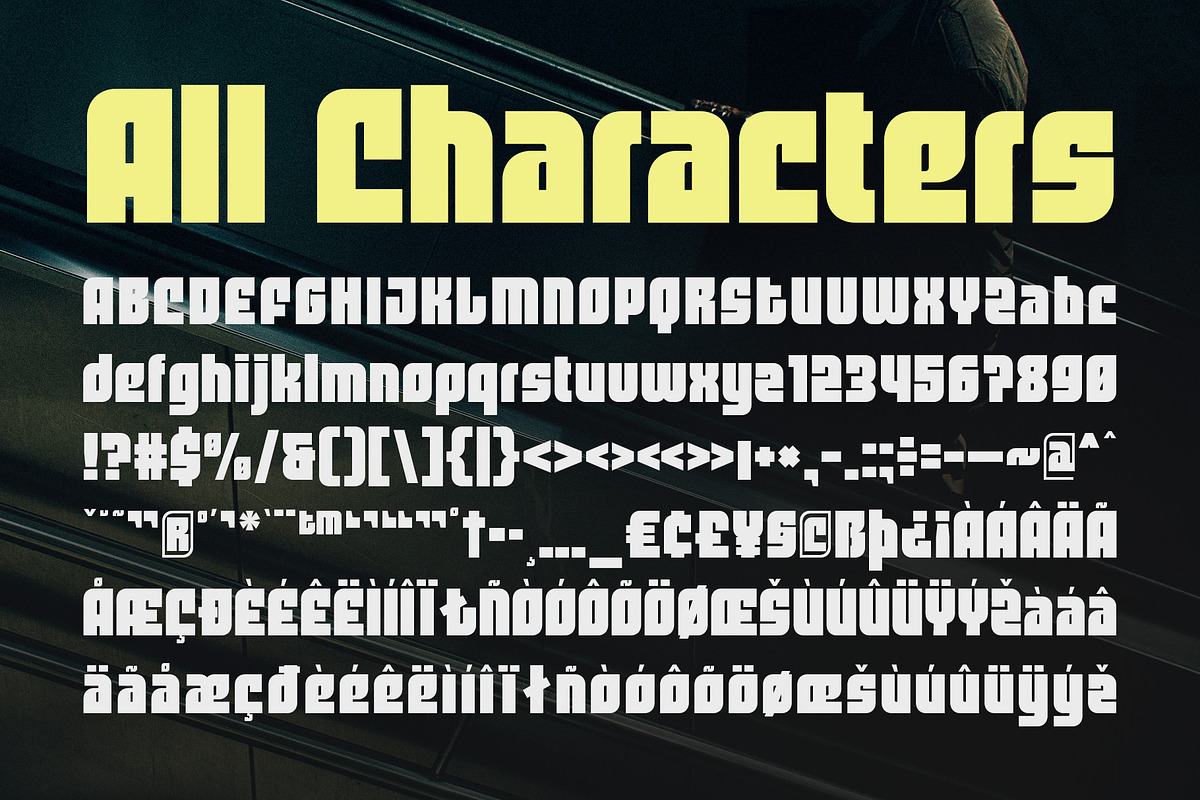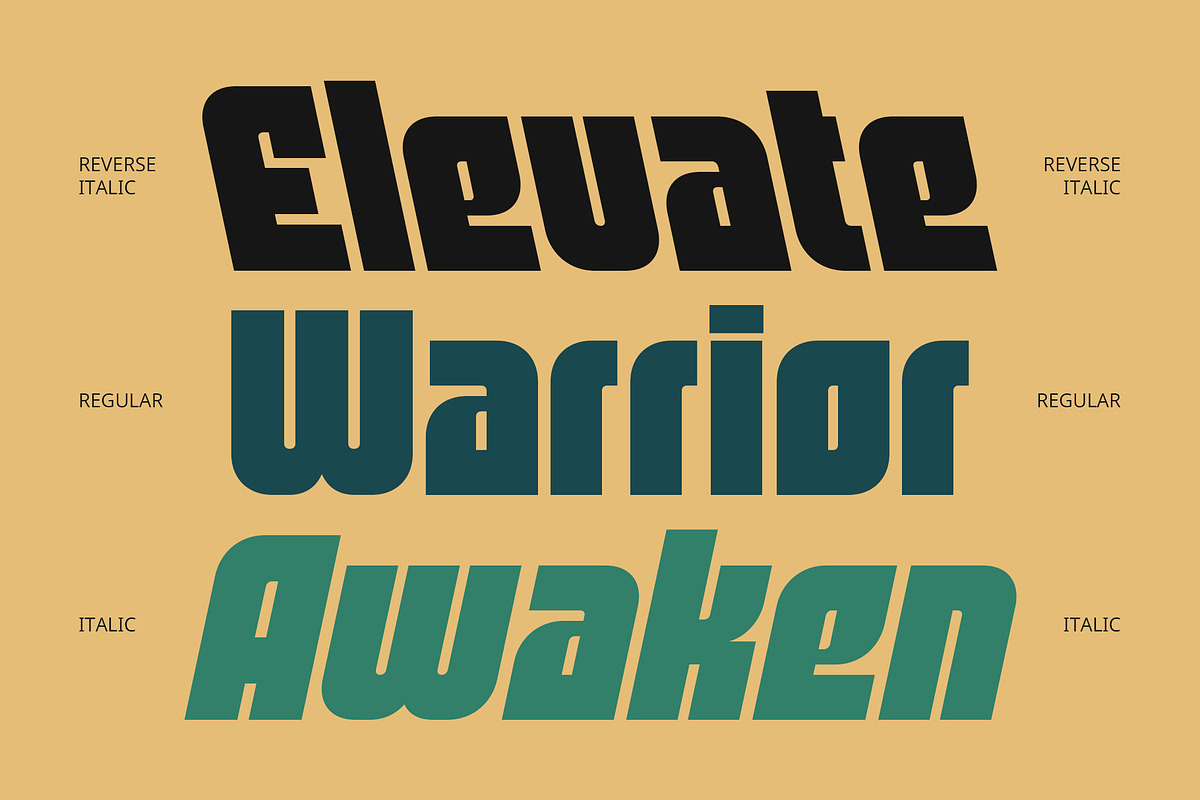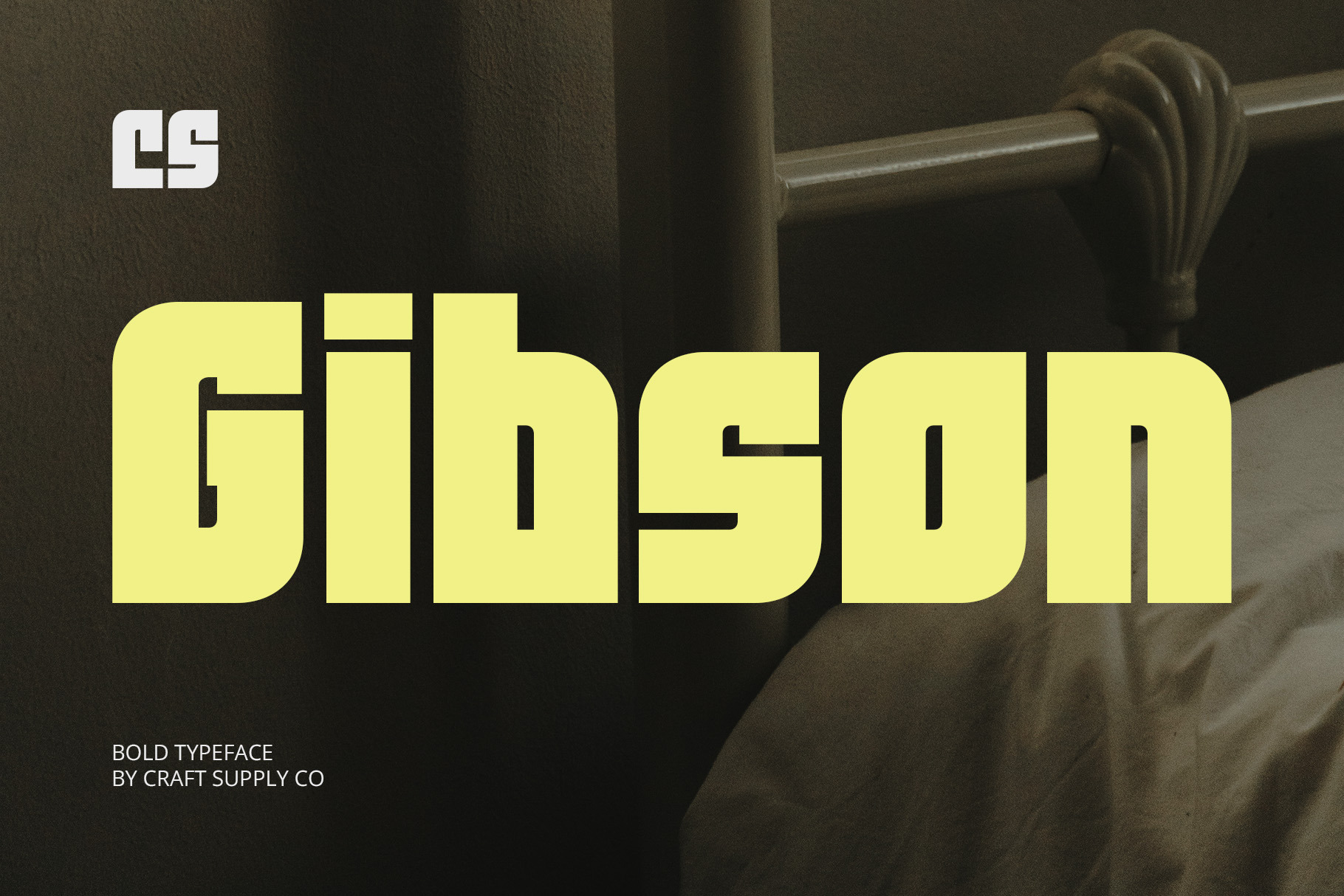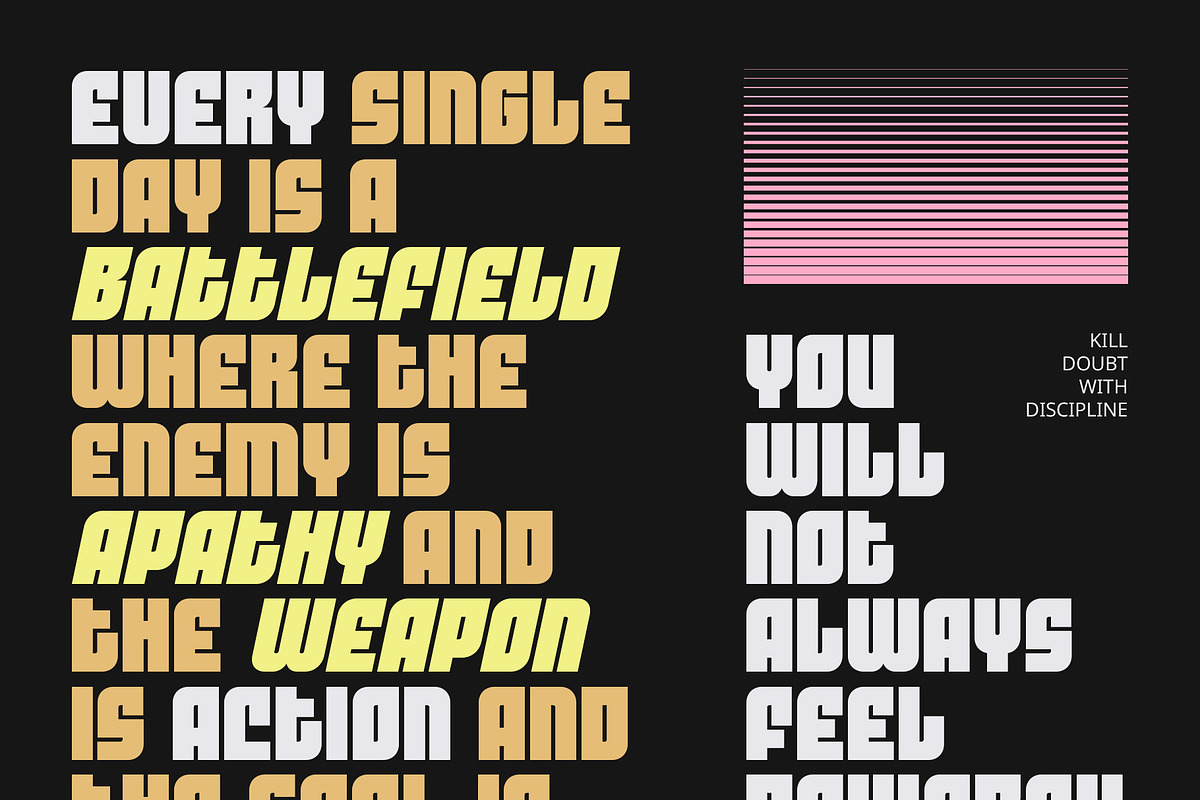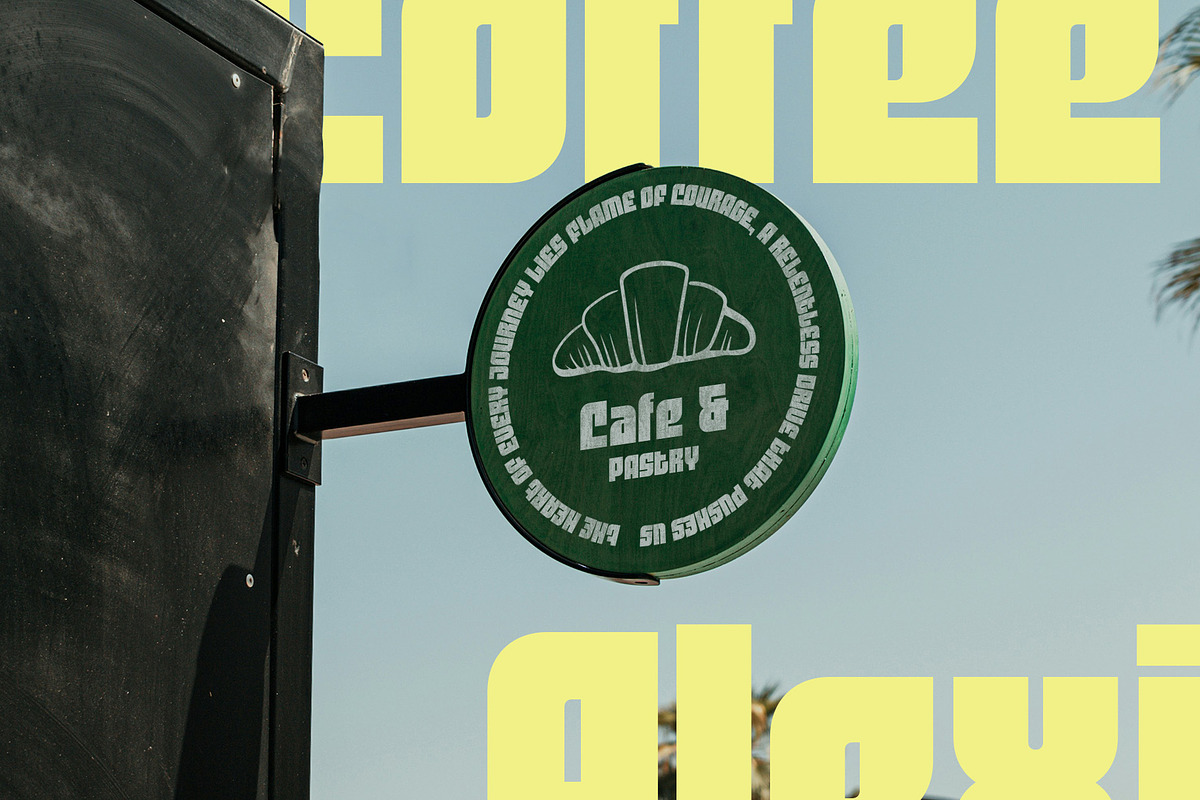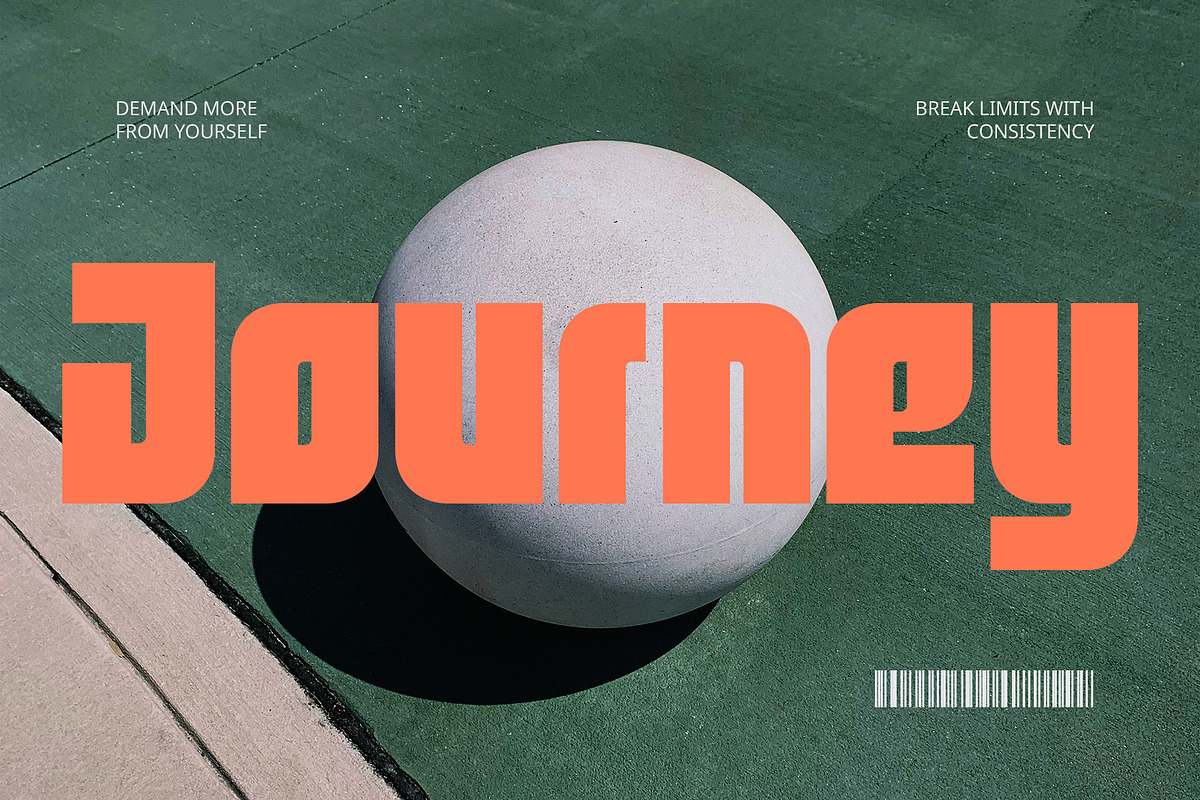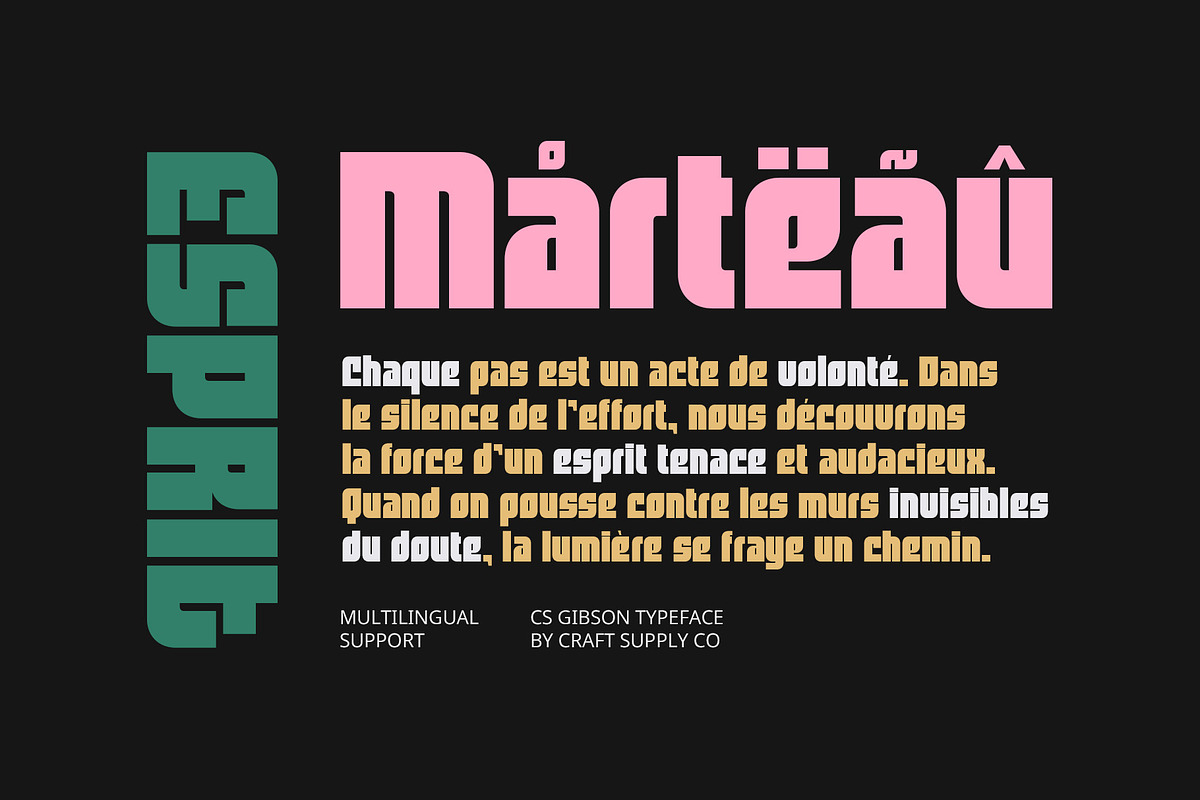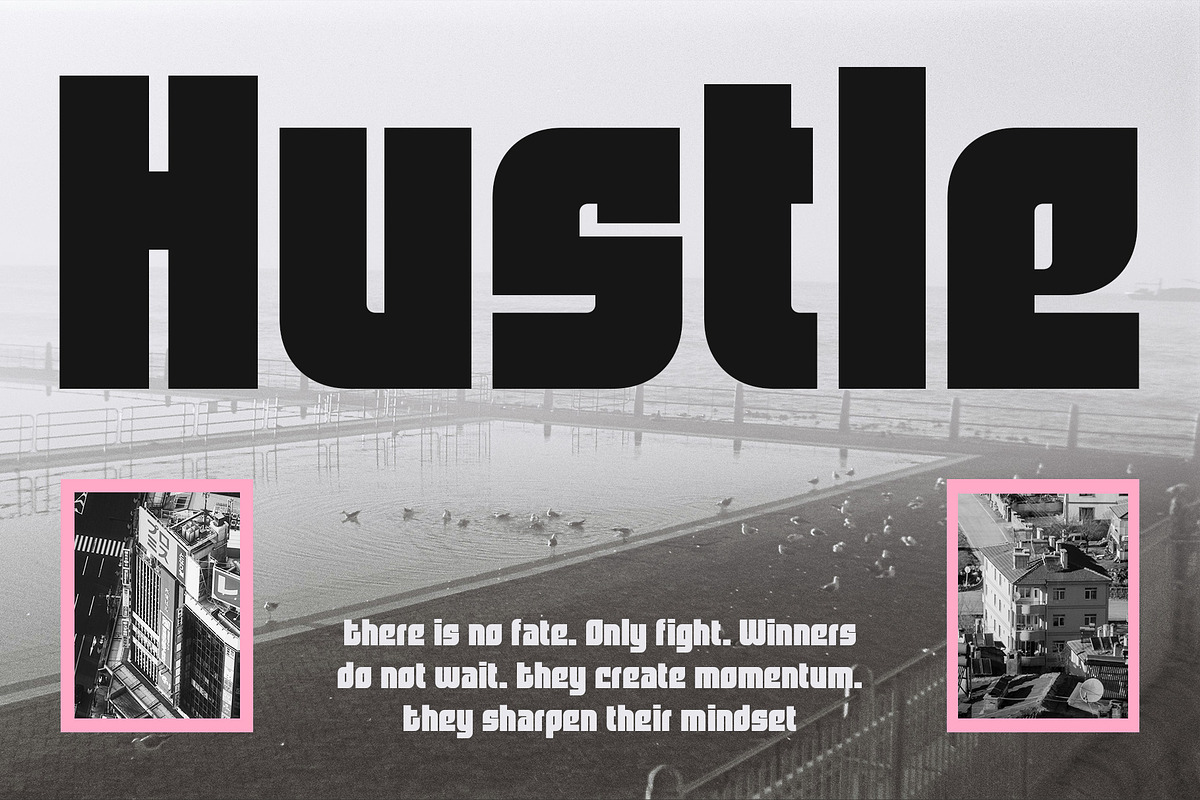
CS Gibson – Bold Font
CS Gibson – Bold Font: Powerfully Modern, Instantly Striking
Bold Form for Maximum Visual Impact CS Gibson is a modern display sans serif font featuring a bold, commanding structure designed to instantly grab attention. Its strong strokes and solid presence make it perfect for high-impact headlines, branding, posters, or digital content that needs to stand out in any setting.
Clean and Contemporary Aesthetic With its clean lines and sans-serif clarity, CS Gibson delivers a refined and modern look. The simplicity of the letterforms is balanced by their bold weight, creating a confident, professional appearance ideal for projects ranging from corporate identities to creative visuals.
Assertive Presence for Confident Messaging CS Gibson speaks with unwavering authority. The bold proportions deliver a feeling of stability and control, making your text appear self-assured and expressive. Whether used in logo design, campaign visuals, editorial layouts, or packaging, this font brings a sense of confidence and clarity to every word.
Versatile for Bold Branding and Design CS Gibson isn’t just about power—it’s also highly adaptable. Its contemporary feel allows it to blend seamlessly into a wide variety of modern design aesthetics. Use it wherever your design calls for boldness, clarity, and unmistakable presence.